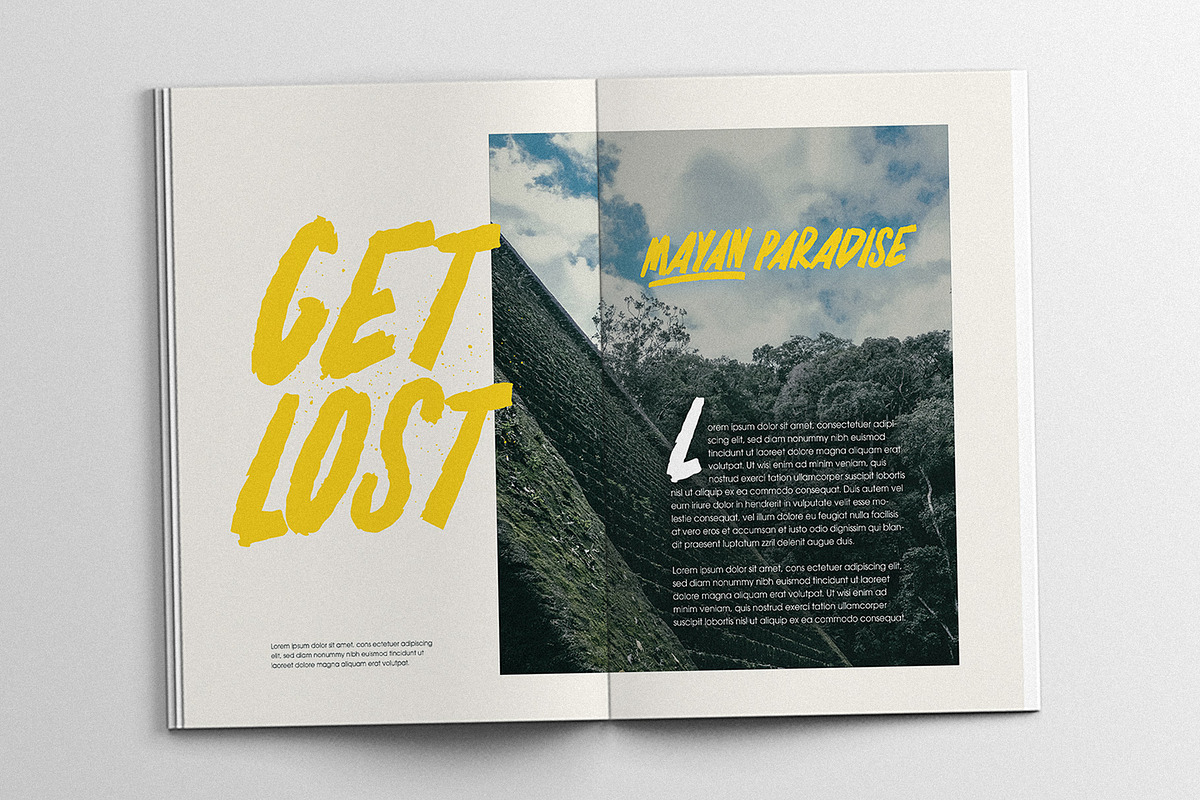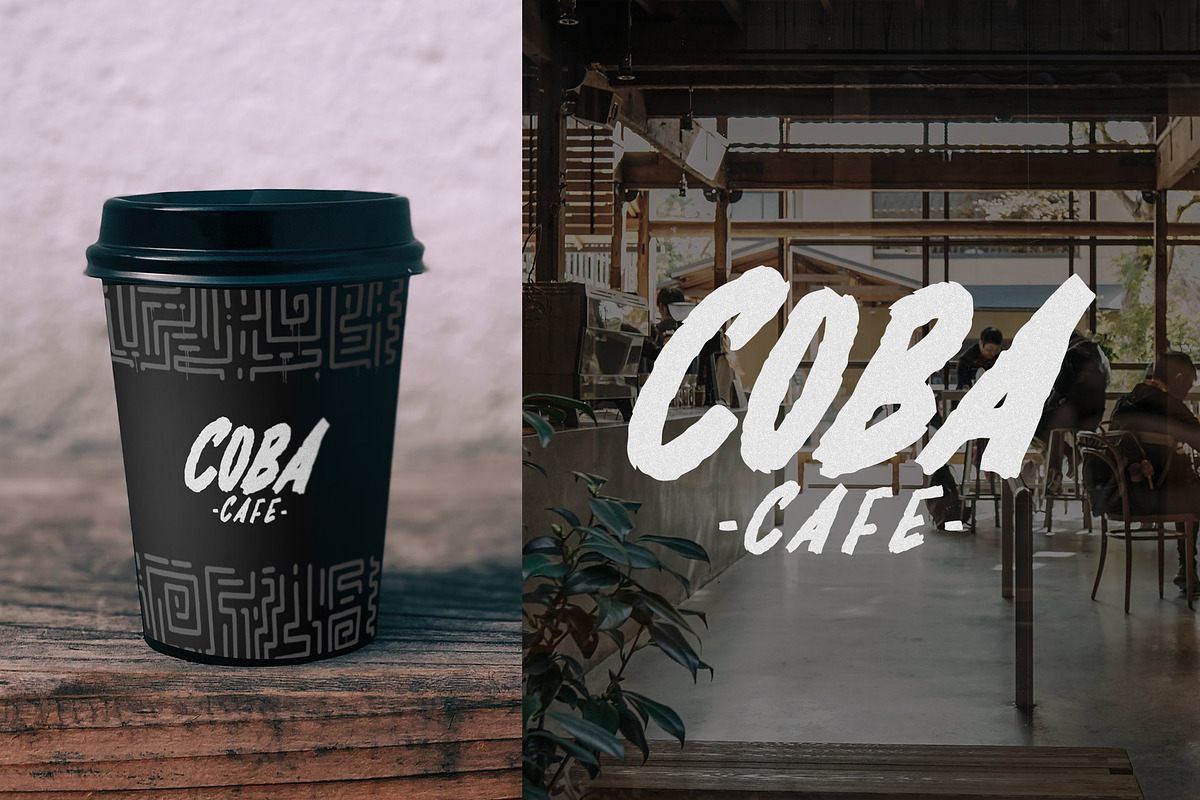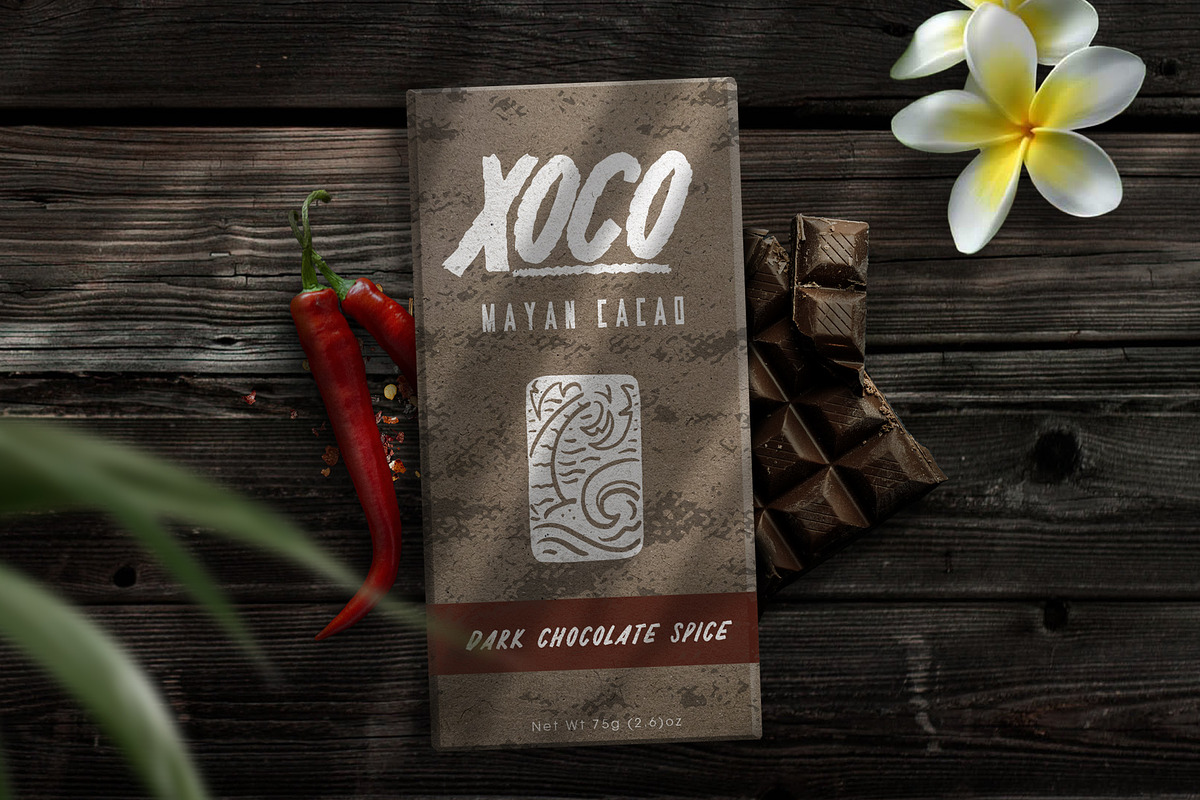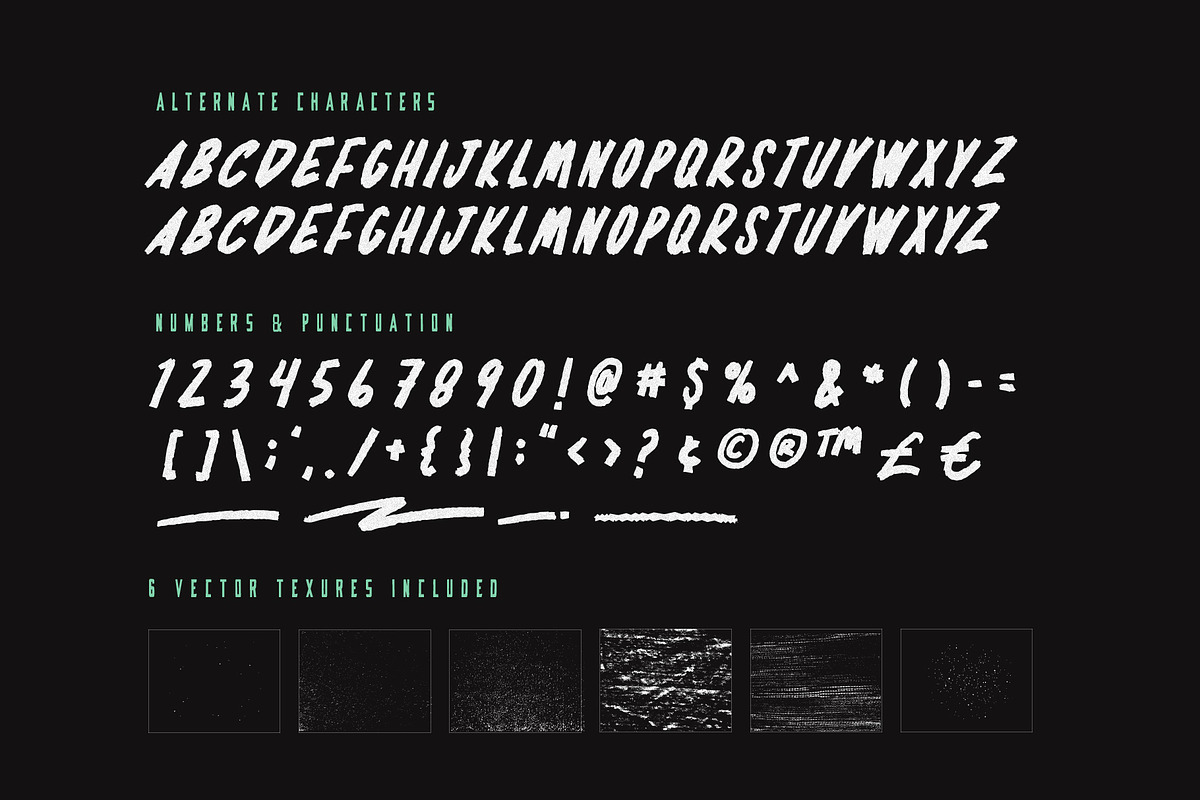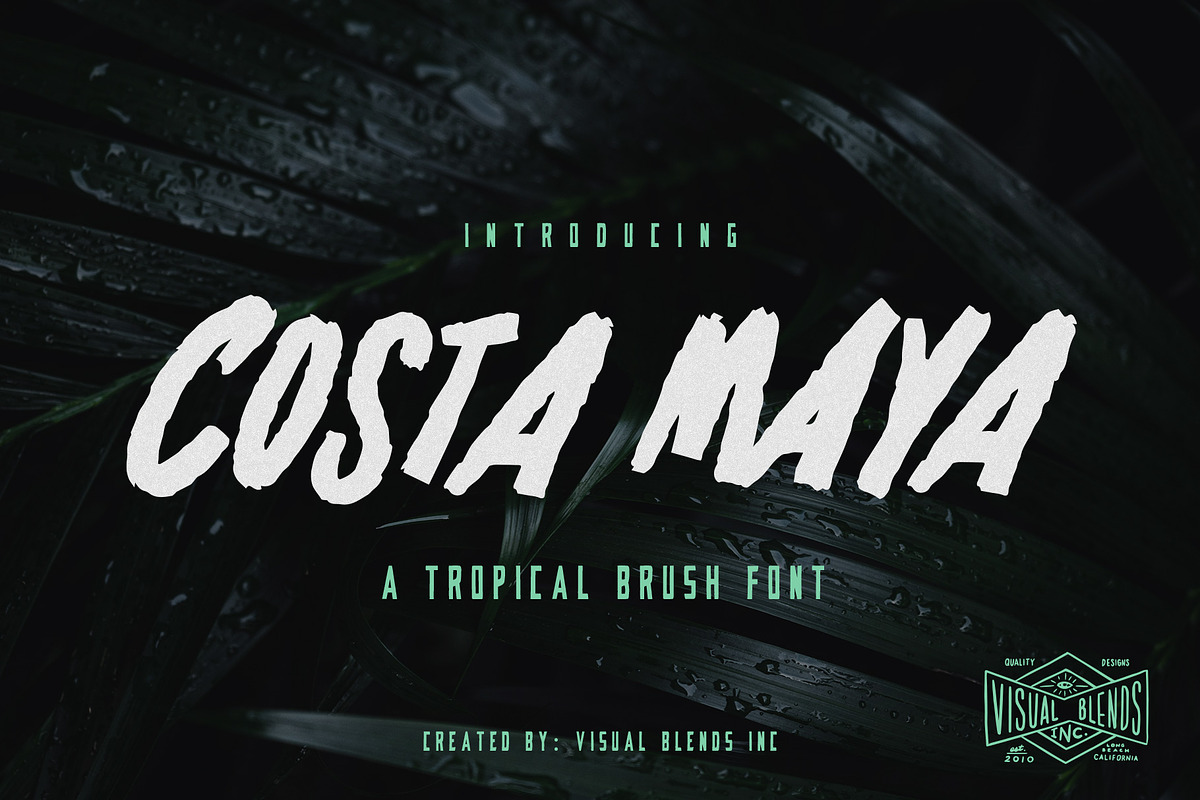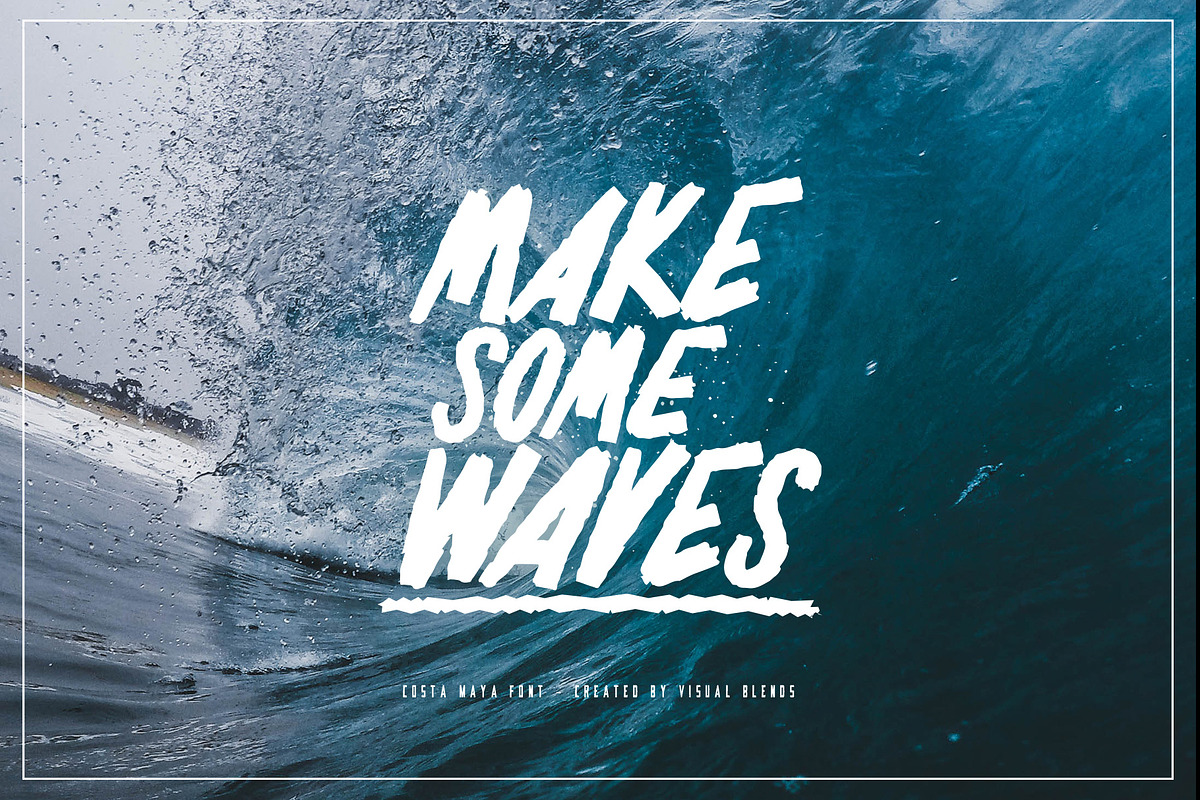
Costa Maya - Tropical Brush Font
Costa Maya is a hand crafted tropical brush font. This typeface has a rustic beach vibe inspired by Mayan Culture. Use lower and uppercase for alternative characters.